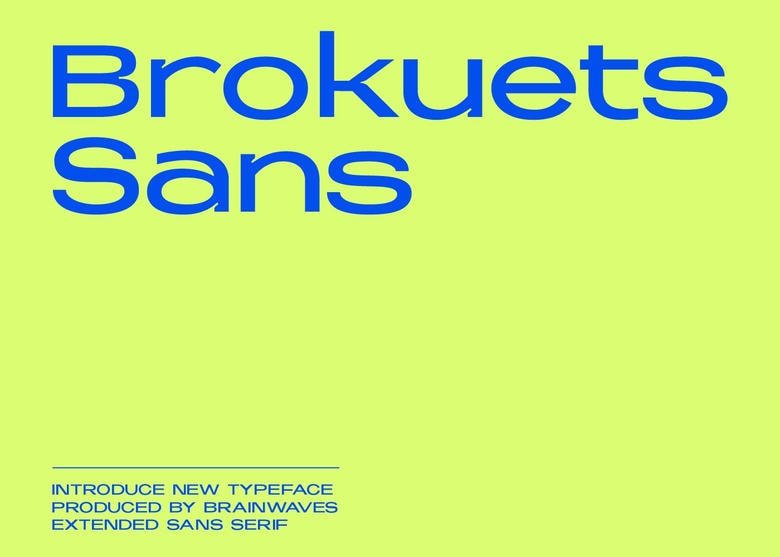
Brokuets Sans Font
Brokuets Sans Font is a sleek, extended sans-serif typeface designed for maximum impact. With its wide letterforms and a touch of futuristic styling, this font brings a modern and dynamic energy to any project.
The carefully crafted geometric shapes ensure a clean, contemporary look, while the unique alternate characters add a creative twist, making it versatile for both professional and experimental designs.
Brokuets Sans Serif Font